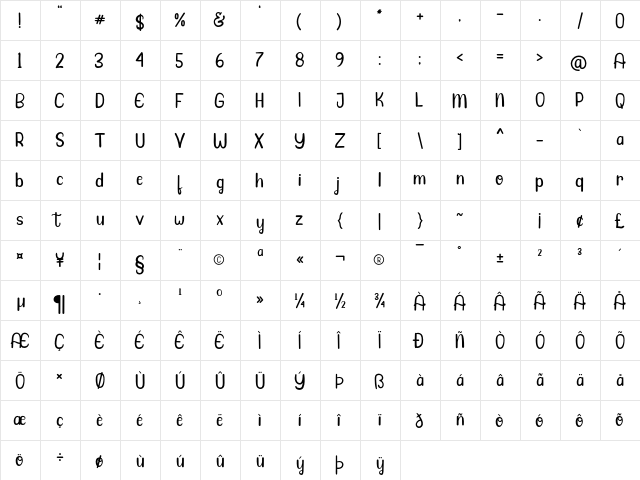
Sweeta Regular
Design Context for Sweeta Typeface
Sweeta takes a measured approach to typography — its balanced proportions and neutral character make it a reliable workhorse for both digital and print work.